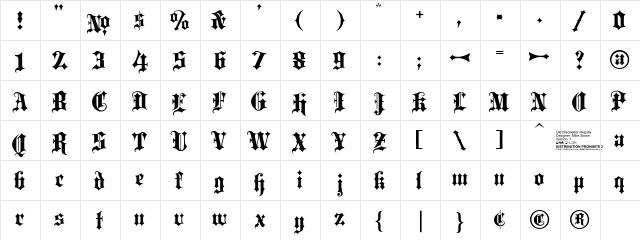
LHFOldBlackletterRegular Medium Font Preview
LHFOldBlackletterRegular Medium
Design Context for LHFOldBlackletterRegular Typeface
LHFOldBlackletterRegular channels the dramatic heritage of Fraktur and Gothic scripts, bringing a sense of historical gravitas to any design.
Well-suited to band logos, craft beer branding, tattoo lettering, and heritage-themed identities.
Font Pairing: Pair with a clean neutral sans-serif for body copy to let LHFOldBlackletterRegular's character lead without overwhelming the composition.
Pro Tip: Use LHFOldBlackletterRegular sparingly at large sizes. Even a single word set in blackletter can define the visual register of an entire design.